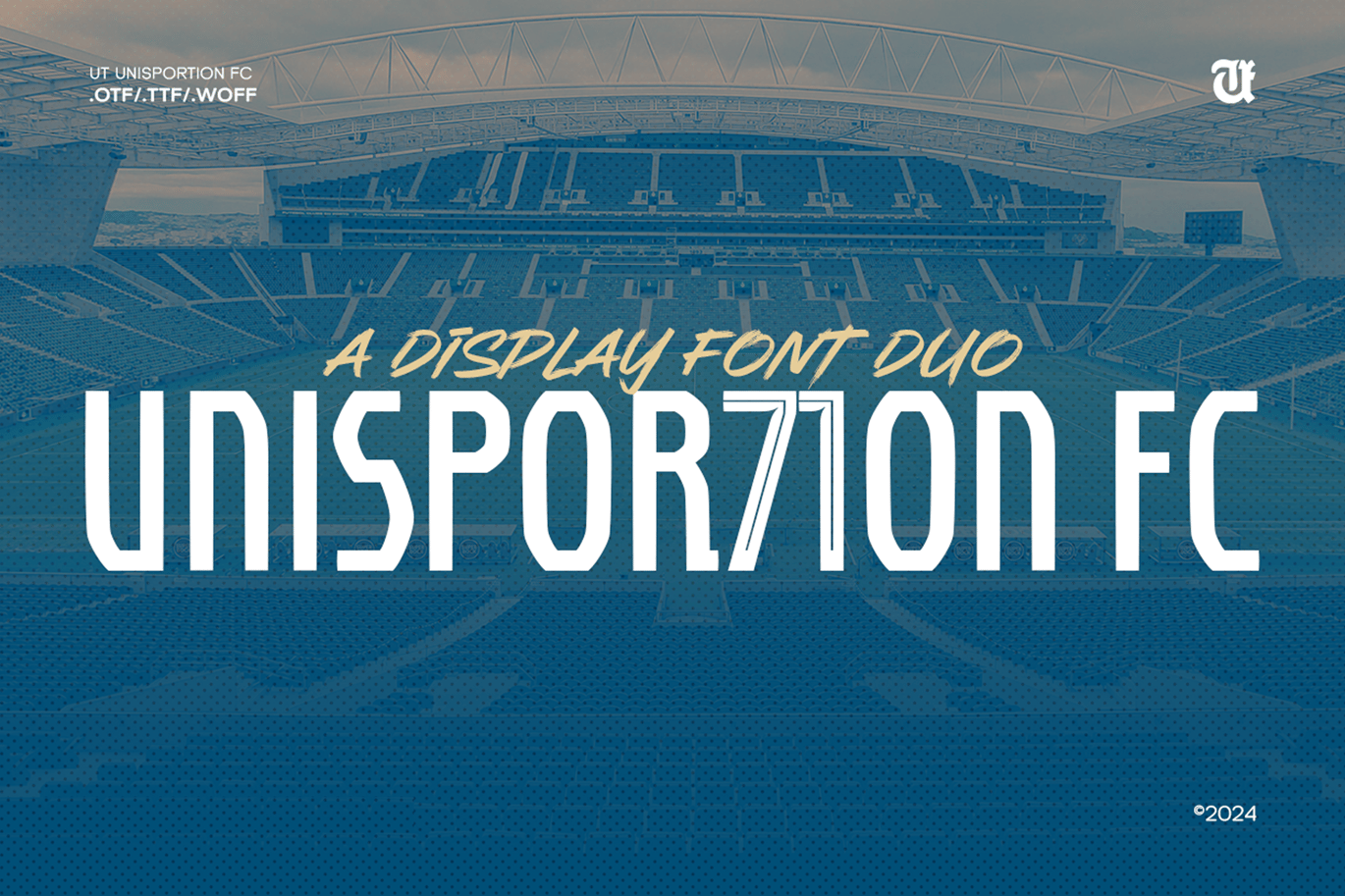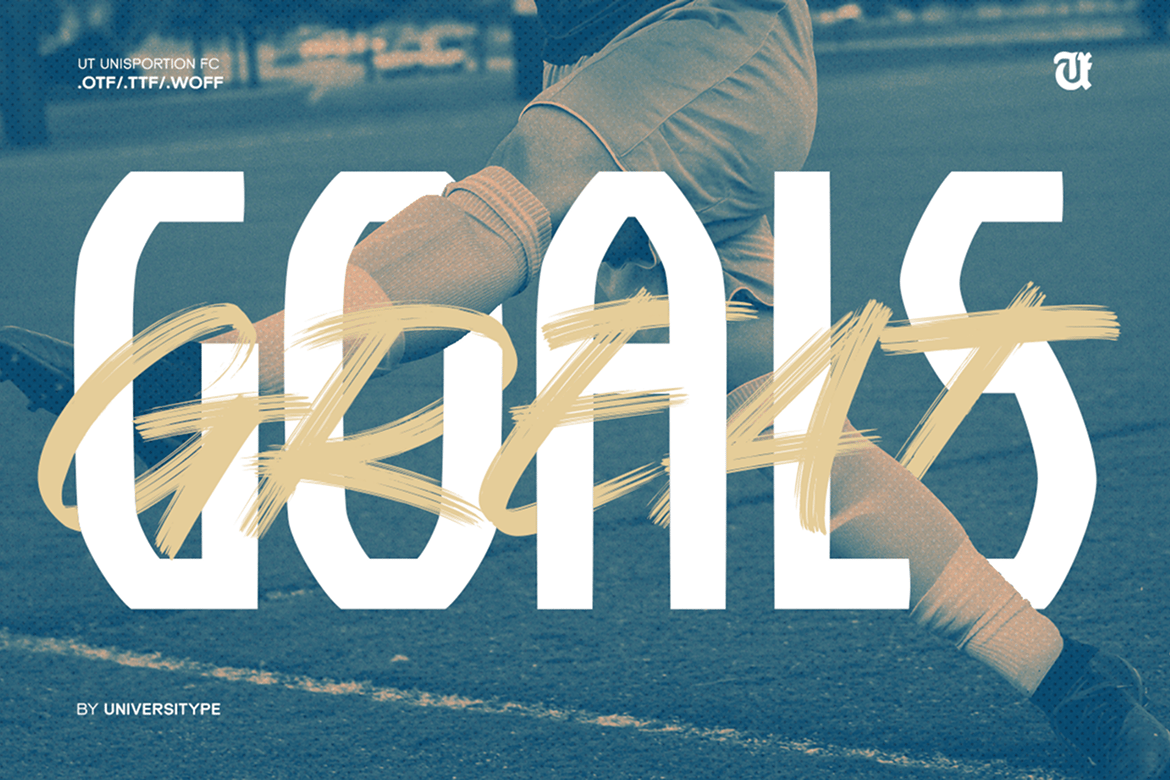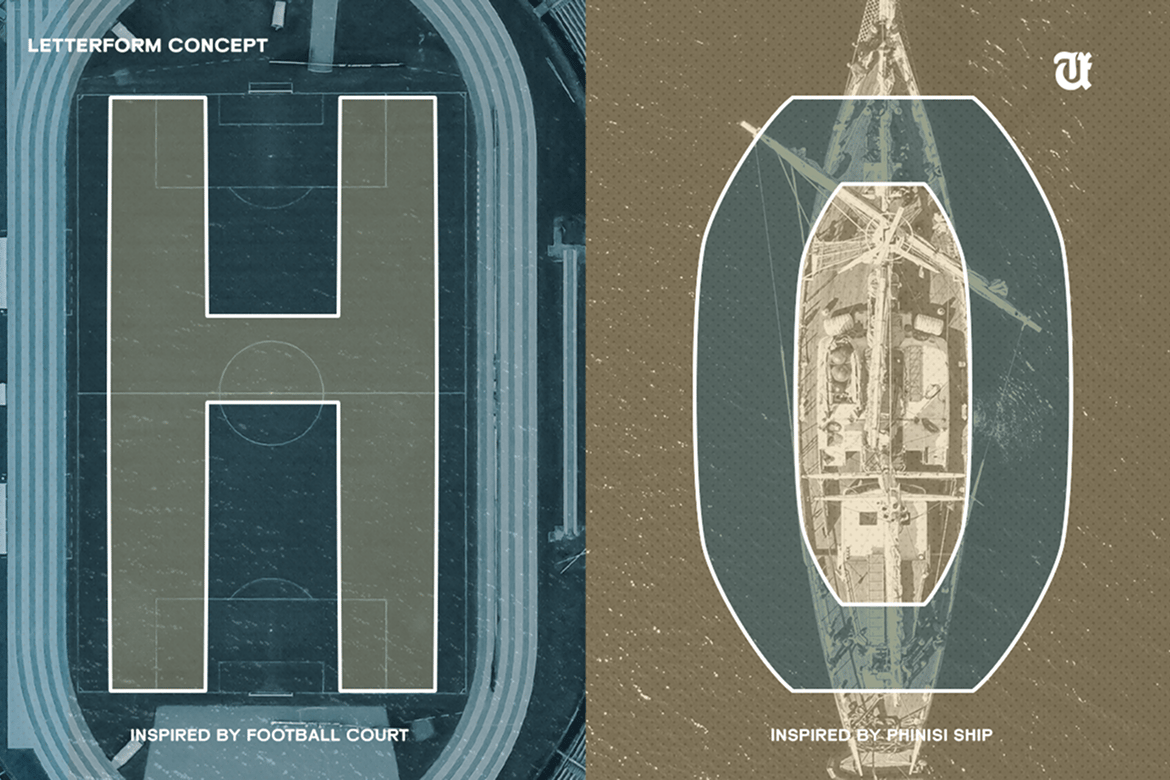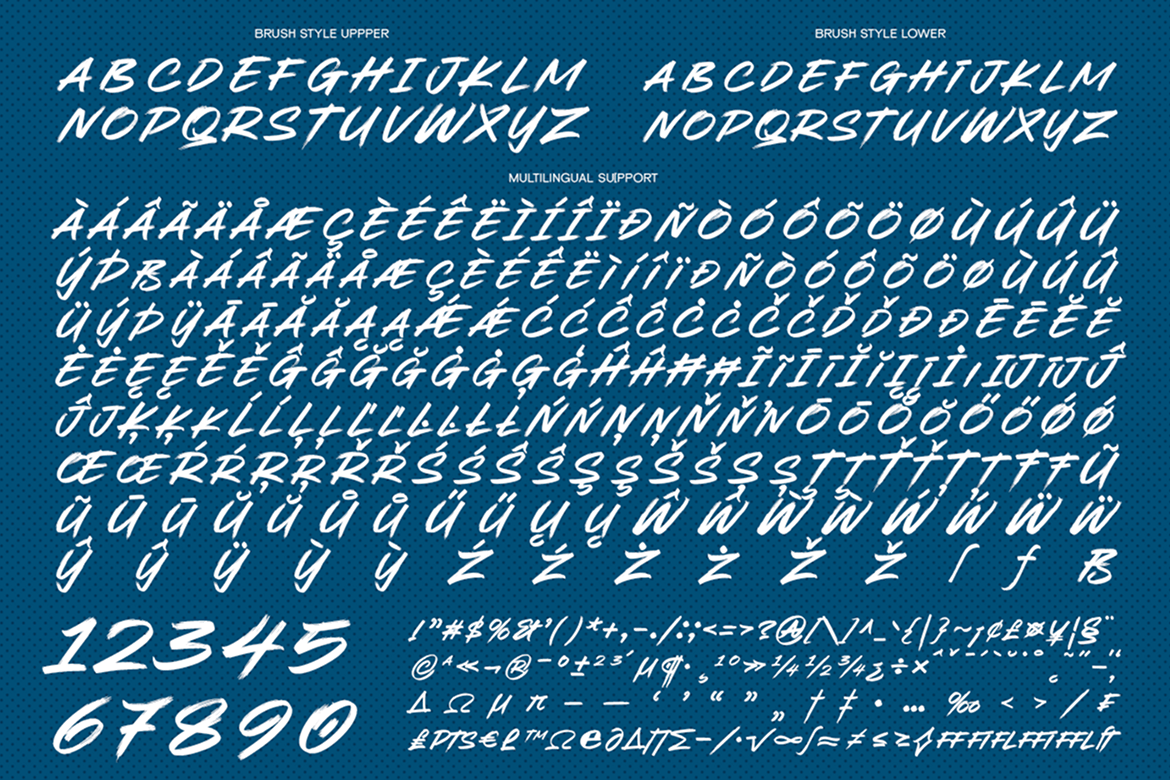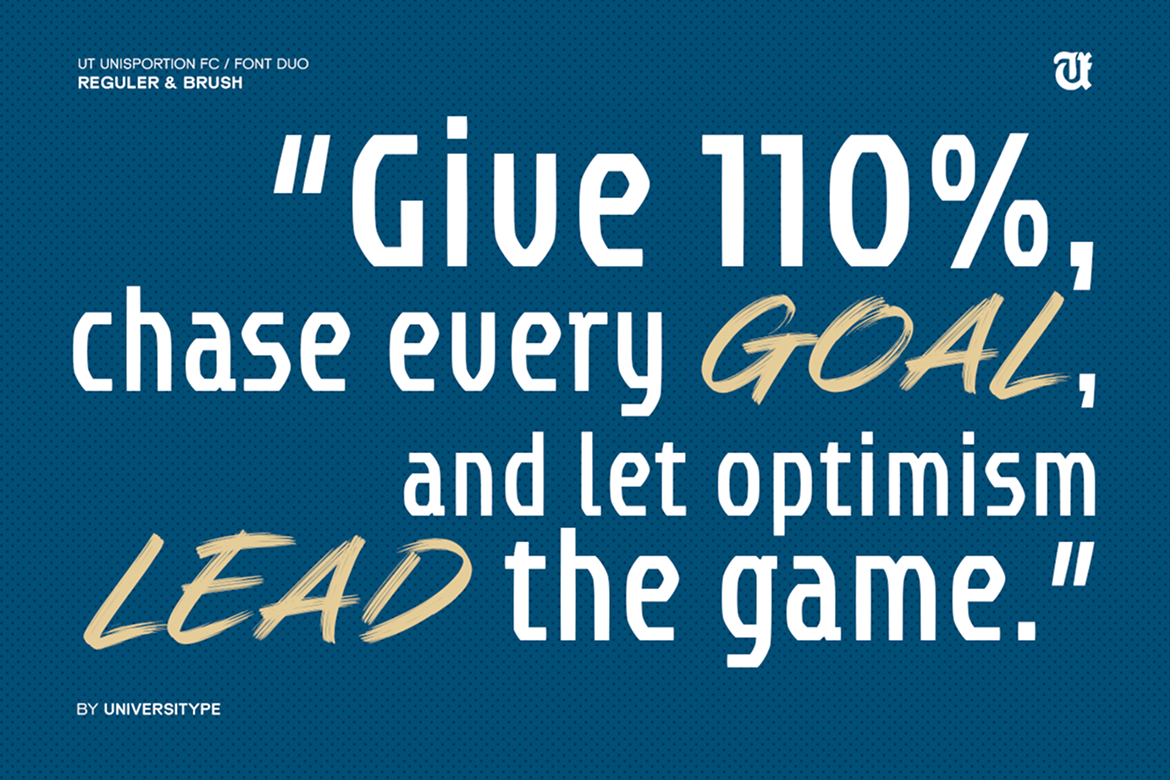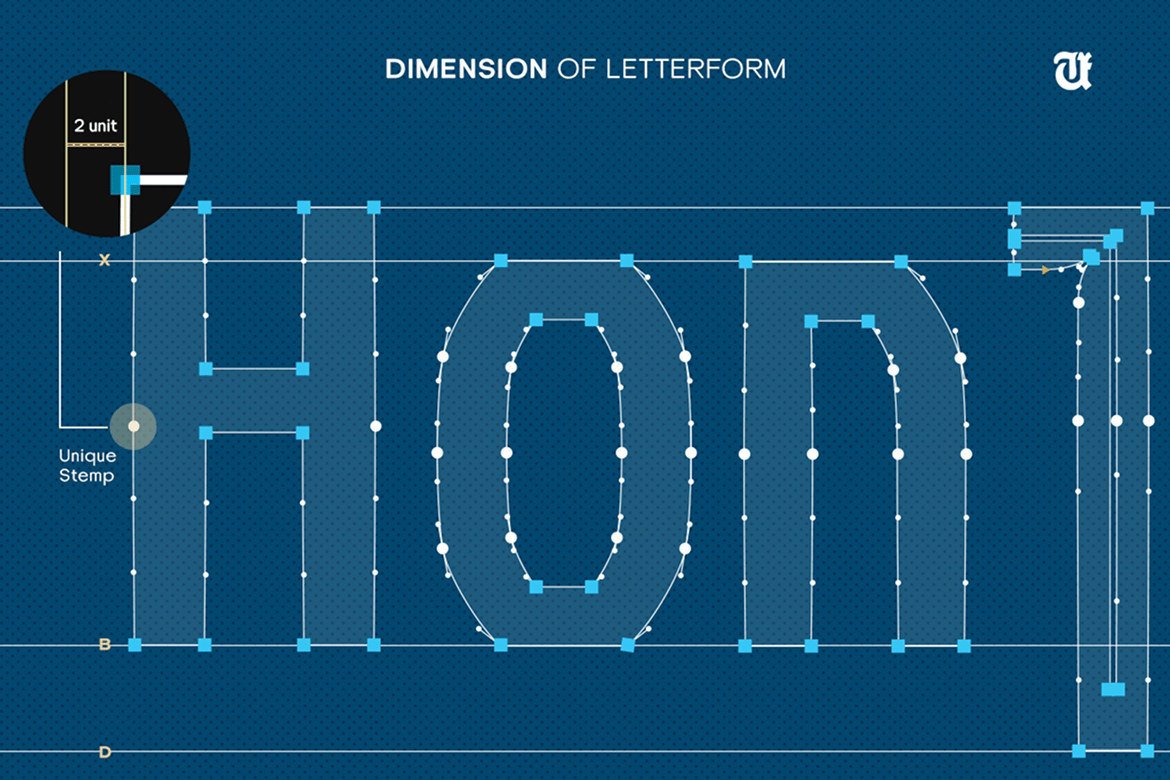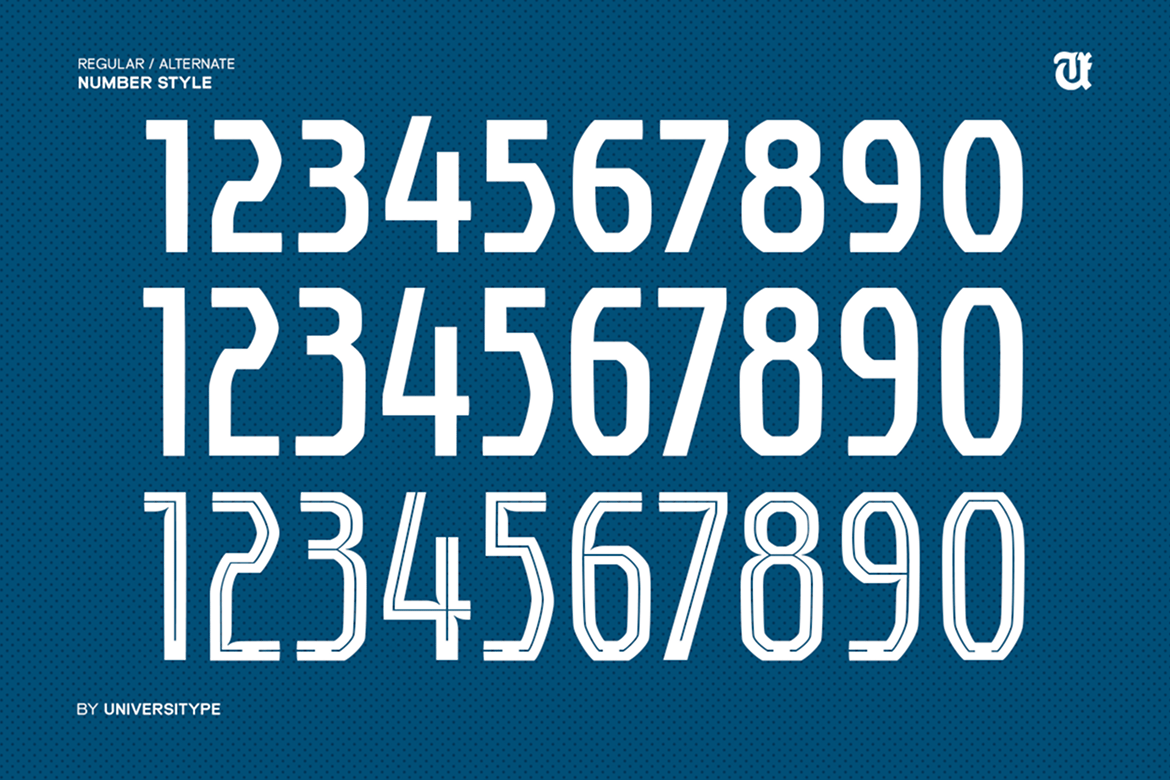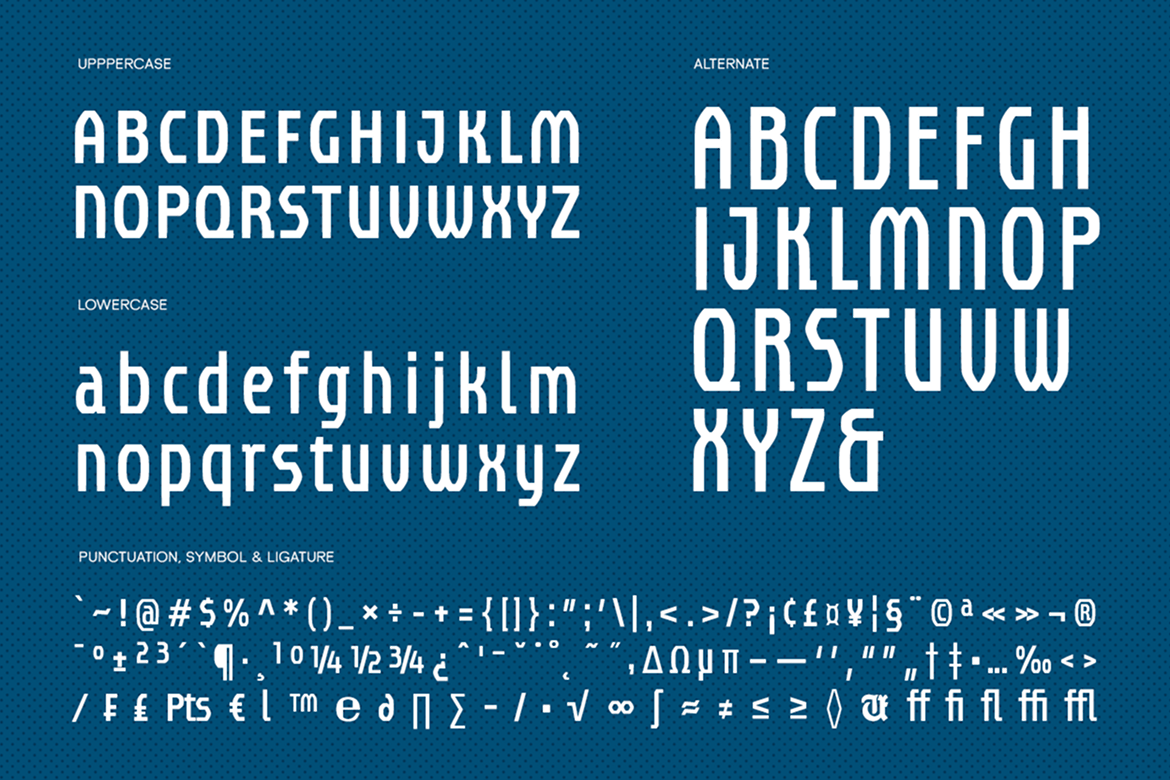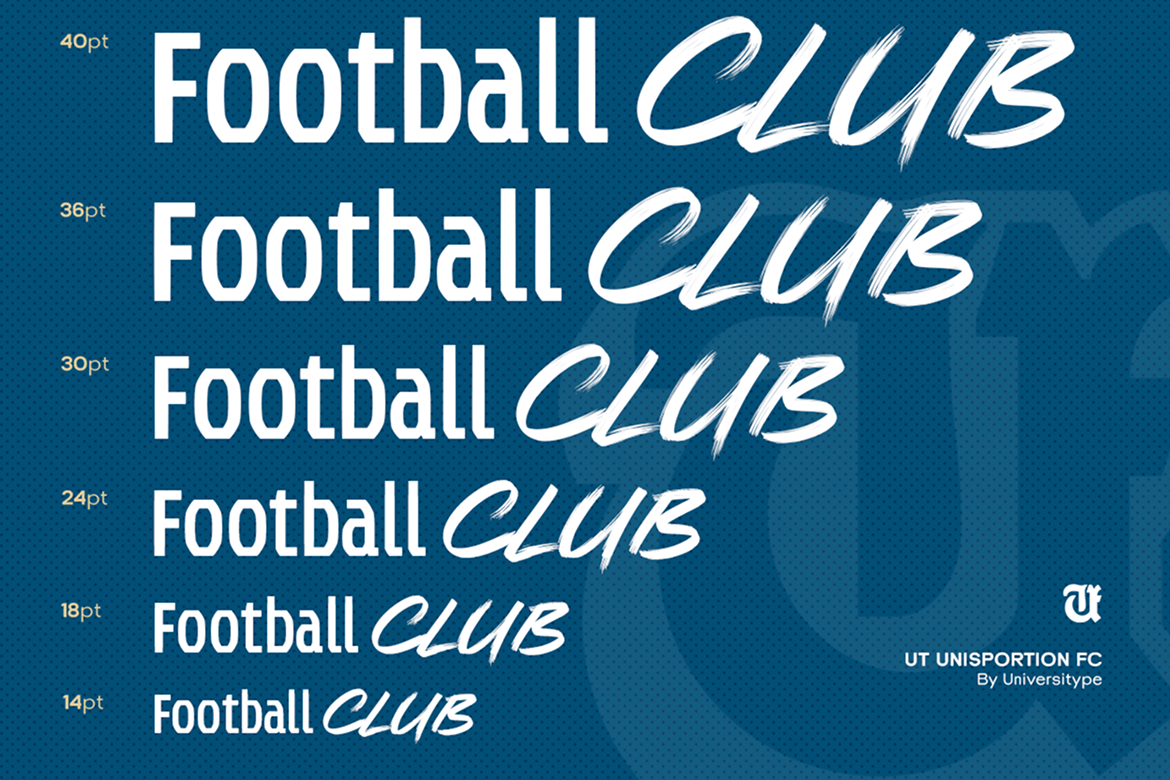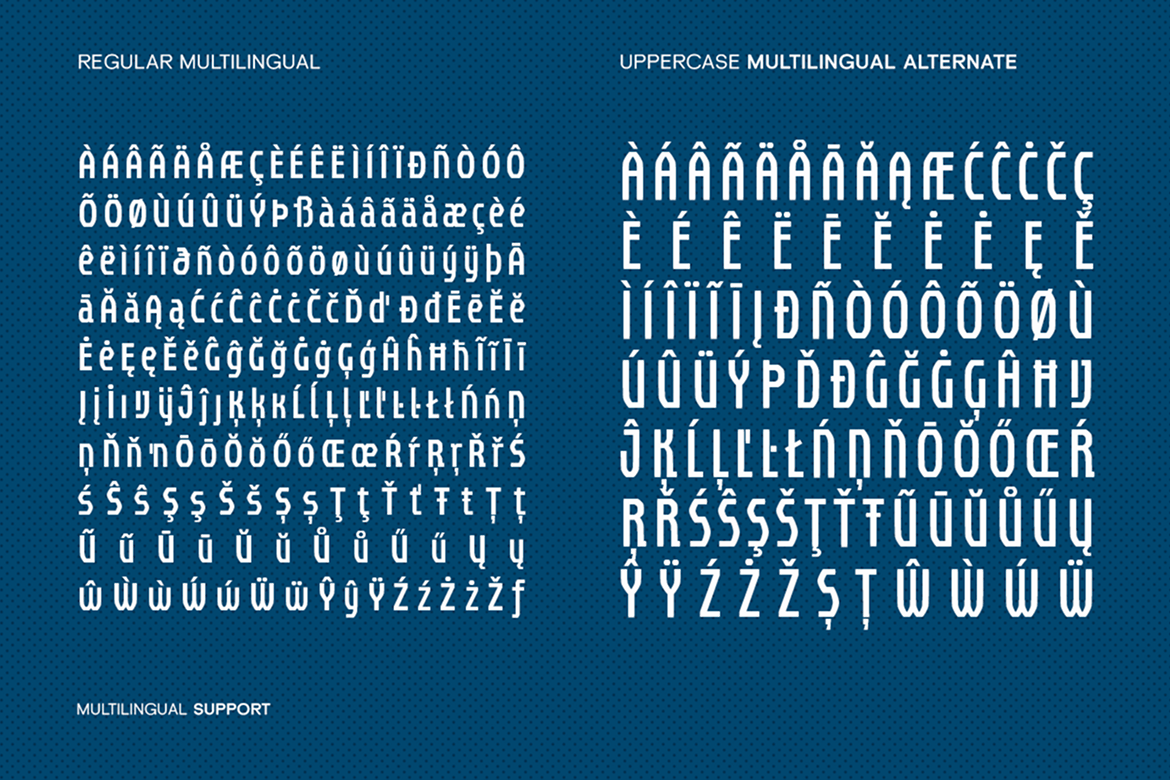
Unisportion FC – A Sporty Font Duo
Unisportion FC: A Font Duo That Takes the Win
Unisportion FC is a sporty font pair that’s bold, dynamic, and influenced by the action-packed vibes of sports culture. This font combines precision and dynamic movement with two distinct styles, Unisportion FC Regular and Unisportion FC Brush. Convert your designs into a unique visual language that is guaranteed to leave a lasting impression. Designed to give your projects a competitive edge, Unisportion FC is perfect for brands and creatives alike who want versatility with a little personality.
Unisportion FC is inspired by the rhythm and excitement of sports culture and the rich heritage of Buginese maritime architecture.
Key Features:
- Dual Styles: Clean, structured Regular for legibility and rough, expressive Brush for a dynamic touch.
- OpenType Features: Supports stylistic alternates and ligatures, plus two stylistic sets for customization
- Versatility: Workable in digital and print applications, from attention-grabbing headlines to eye-catching logos;
- Readability: Created with crisp strokes and excellent kerned typeforming, so the design may be read at any size.
The Design Inspiration
With a long history of maritime traditions from the Buginese people, the architecture details from the iconic Pinisi boat became ideas and one of the main references for designing this font duo (Unisportion FC Font Duo) The traditional design of this ship, which has existed for hundreds of years, is not only a form of the Buginese people’s ability to sail at sea but also a work that tells the beauty which never fades with unique carvings and stunning curves in this wooden vessel. Nestled in this rich cultural crossroad, Unisportion FC Font Duo embodies the romance of high seas adventures and a touch of vintage timelessness.
Pinisi Boat: Heritage and Craftsmanship
Ornate Wood Carvings: The Unisportion FC Regular style is inspired by the elaborate ornamentations of a Pinisi boat that highlight the handiwork of Buginese artisans. Simplified forms and elegant lines reflect the accuracy and beauty of these old school carvings, ideal for modern Day sophistication and elegance.
Fluid, Dynamic Silhouette of a Traditional Vessel: The shape of the traditional Pinisi boat is graceful, dynamic like wind-filled sails from the Unisportion FC Brush style. Natural and humanistic curves that are perfect for adding some extra emotional depth and humanity to your creative project, similar to the way sea-weathered signage or a sailor log book look.
The Font :
The anatomy of Unisportion FC is a harmonious blend of architectural and maritime influences. The control characters “H,” “O,” and “N” highlight its foundation in the clean geometry of stadium design, while the broader letter anatomy takes inspiration from the front and back decks of the Phinisi boat. The curved lines and pointed edges reflect the elegance and functionality of the vessel’s structure, creating a font that exudes both balance and dynamism. This intricate approach ensures that every character carries a sense of movement and purpose.
Usage Suggestions:
- Branding: Great for sports logos, team identity and club apparel.
- Just look at the marketing materials; big headlines for use on posters, banners and advertisements.
- Web Design: Headlines, menus or CTAs that need to stand out
- Event Design: Jerseys ticket designs and signage for a tournament or an athletic event.
- Features: Alternate characters, stylistic alternates, ligatures